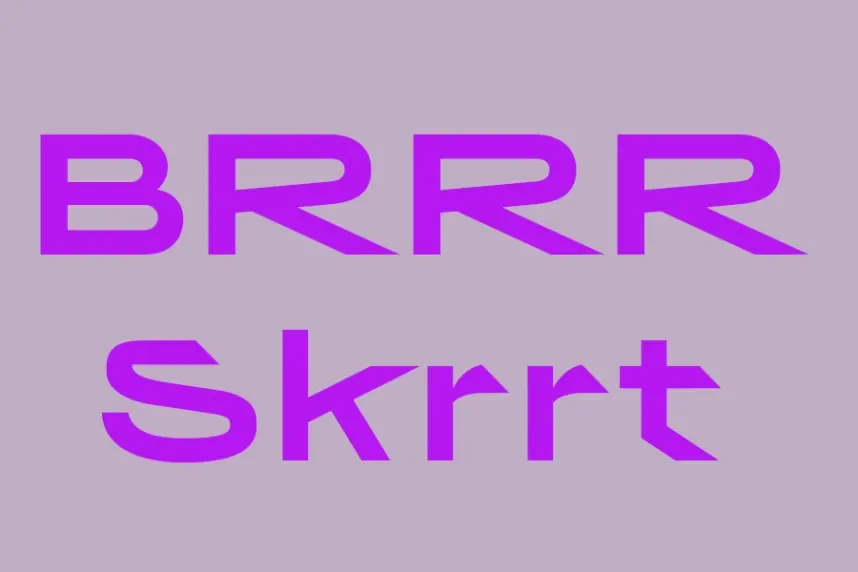
BRRR Skrrt Font is a bold display typeface crafted for readability and visual impact in urban, music, and lifestyle-themed designs. Its thick strokes and high-contrast shapes ensure strong visibility in headings and graphics.
The font features angular glyphs with sharp edges, consistent stroke widths, and dynamic letter spacing. Ligatures and stylistic alternates allow creative customization for branding, posters, and social media content.